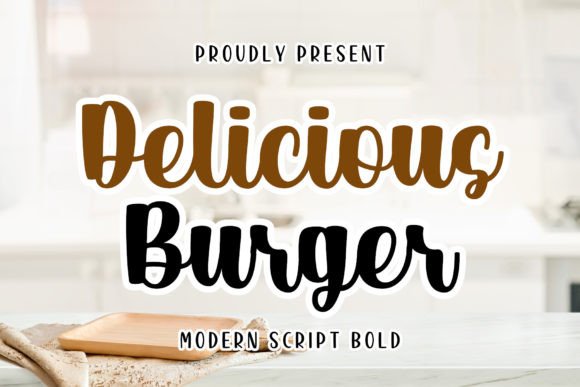
Get ready to tantalize your taste buds with the delectable flavors of our newest font, Delicious Burger. A daring script font that's guaranteed to add a dash of scrumptiousness to your designs, leaving your audience craving more.
Crafted with culinary passion, Delicious Burger is the secret ingredient your projects have been yearning for. Its juicy curves and mouthwatering glyphs will transform your words into a visual feast. Whether you're concocting enticing food posters, designing tantalizing logos, or crafting delectable menus, this font is your ultimate culinary companion.
Imagine your words sizzling on the page, each letter like a perfectly grilled patty, ready to be devoured by eager eyes. Delicious Burger will add a dash of spice to your social media posts, making your content as irresistible as a gourmet meal. Elevate your web designs with this font's unique flavor, leaving your visitors savoring every morsel of information.